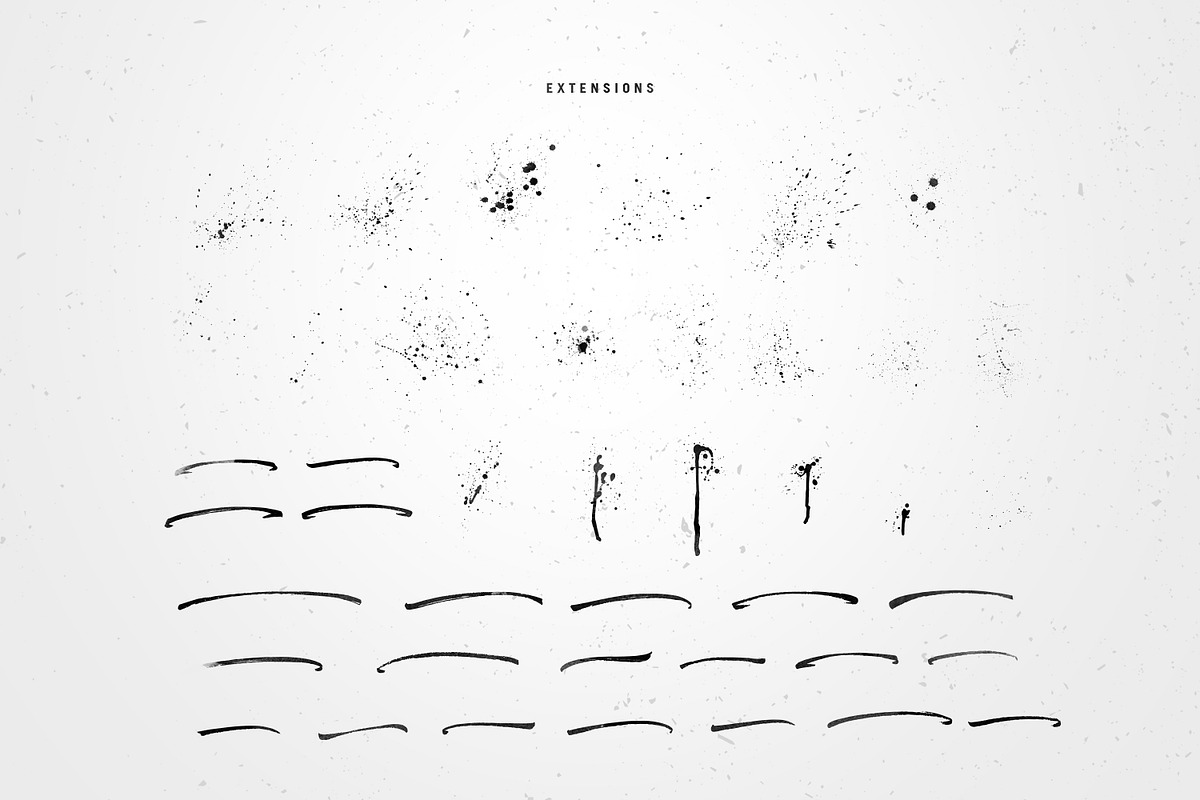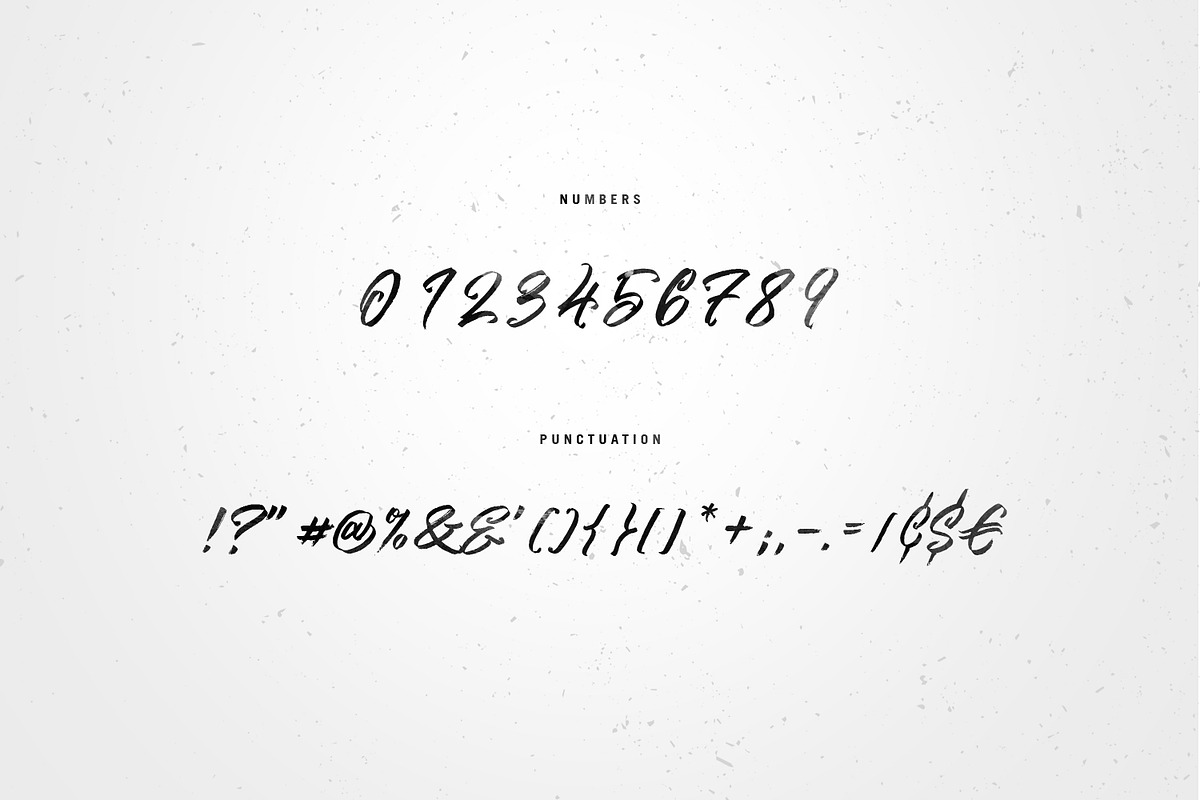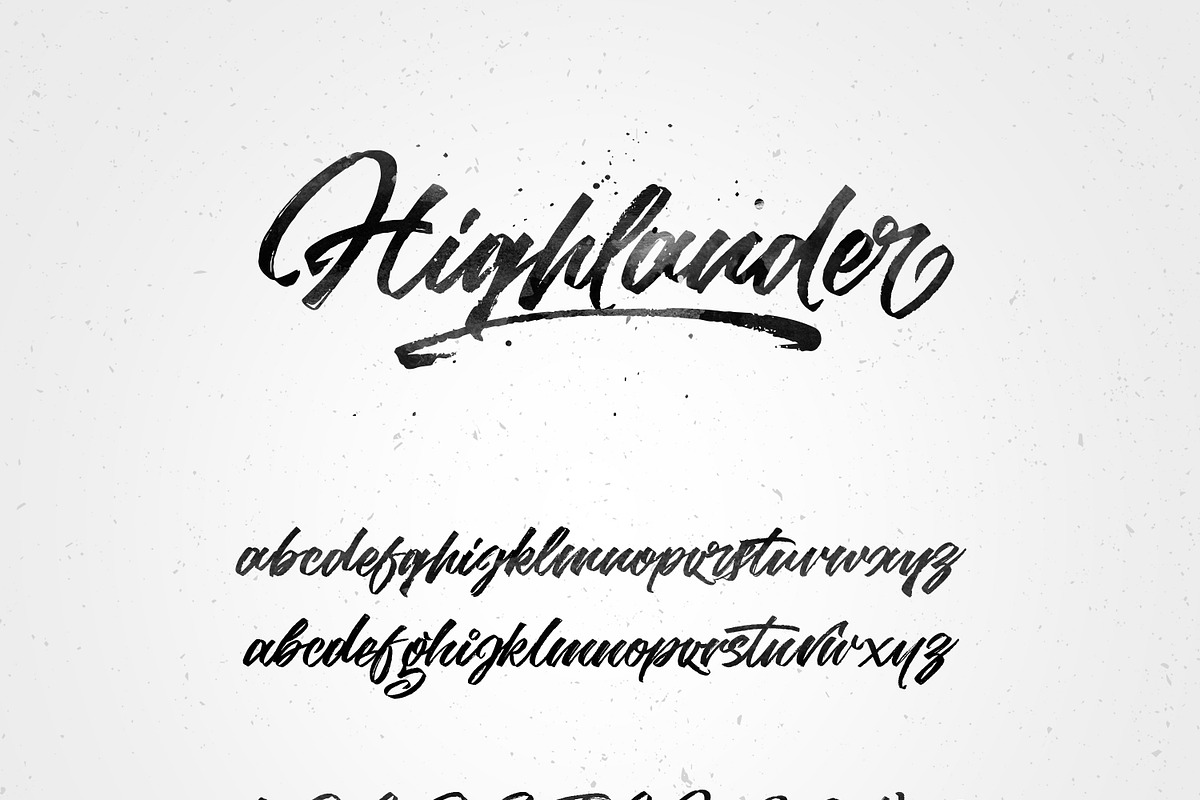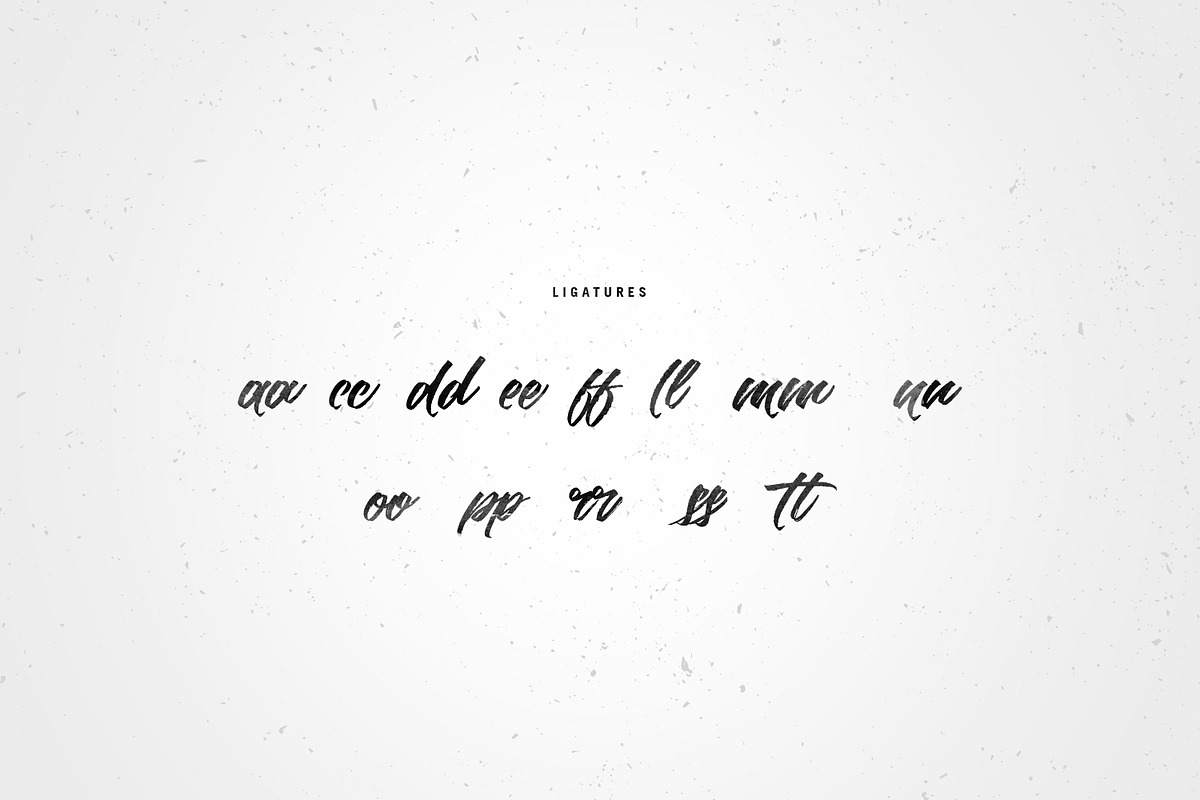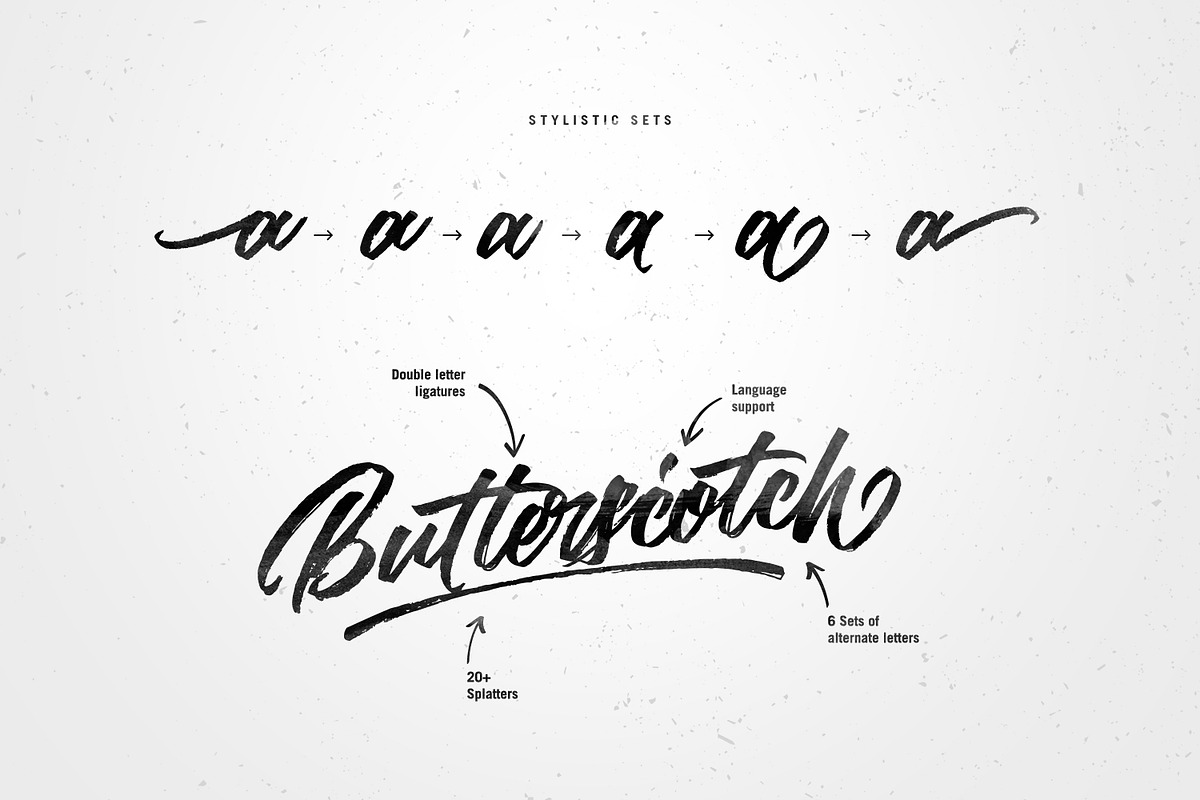
Highlander marker script
Highlander comes with a full set of upper and lower case characters - giving you the extra freedom to turn your text into authentic custom-made hand lettering.
Highlander font Includes a large range of glyphs including numerals, punctuation & multilingual support. Also included is a bonus extras font, which consists of Extentions designed to perfectly compliment your primary text.
Language Support is included for the following languages :Cornish, Danish, Dutch, English, Estonian, Faroese, Filipino, Finnish, Galician, German, Icelandic, Irish, Italian,Norwegian Bokmål, Norwegian Nynorsk, Spanish, Swedish, Swiss German.